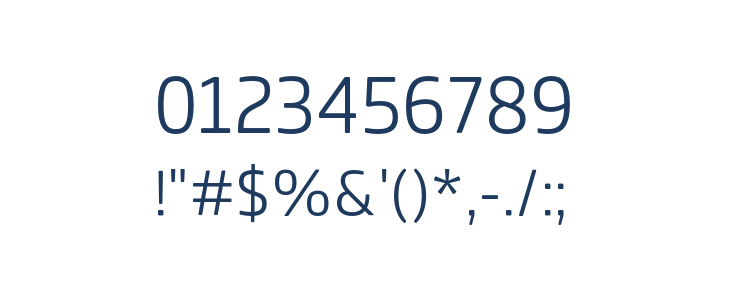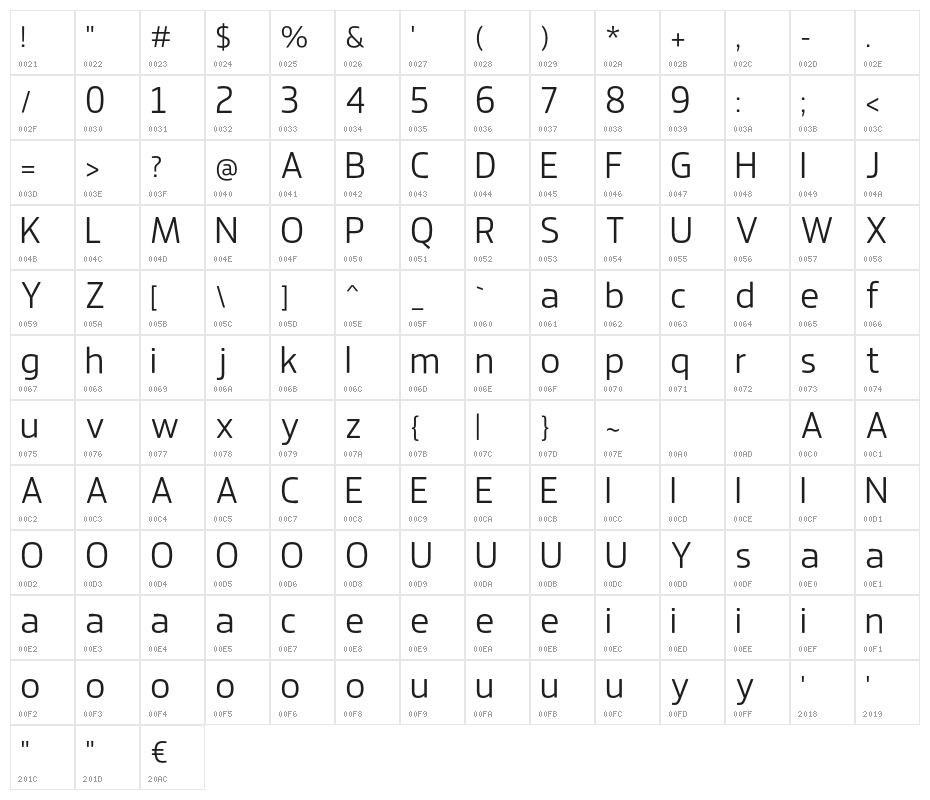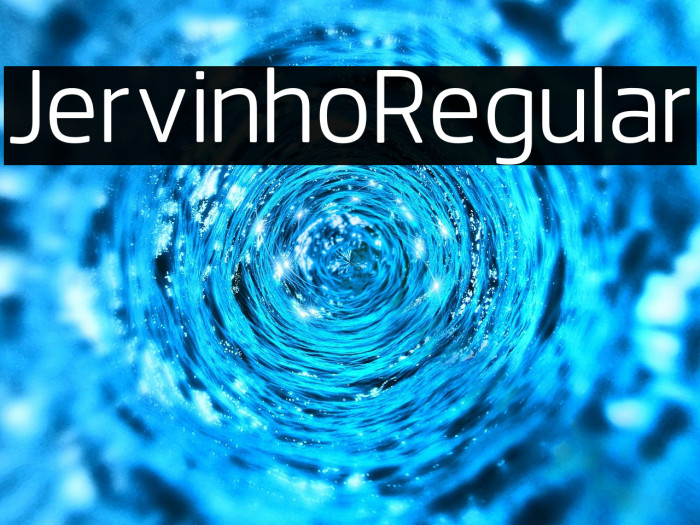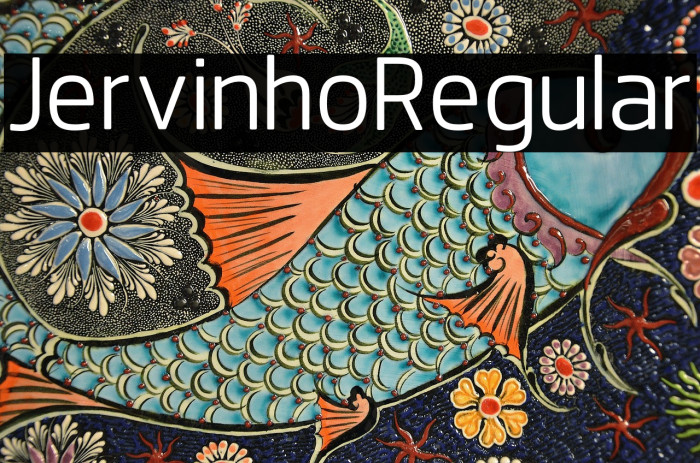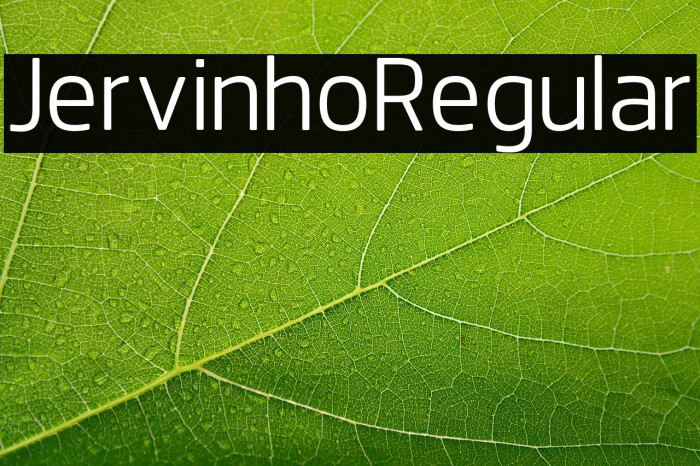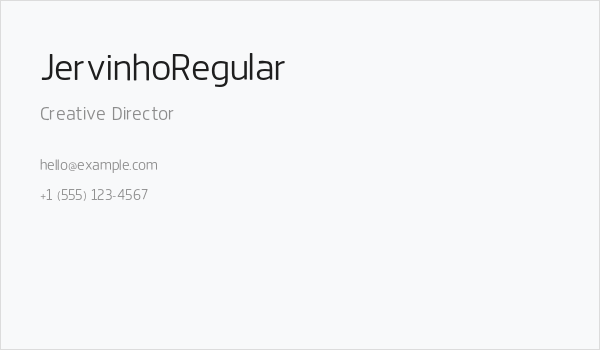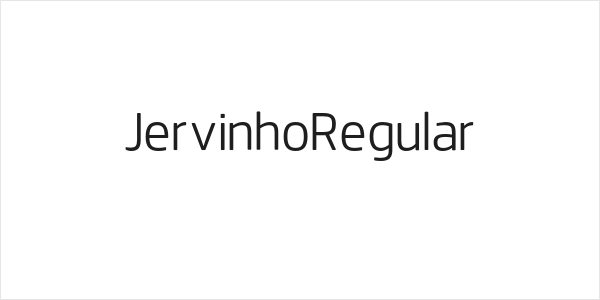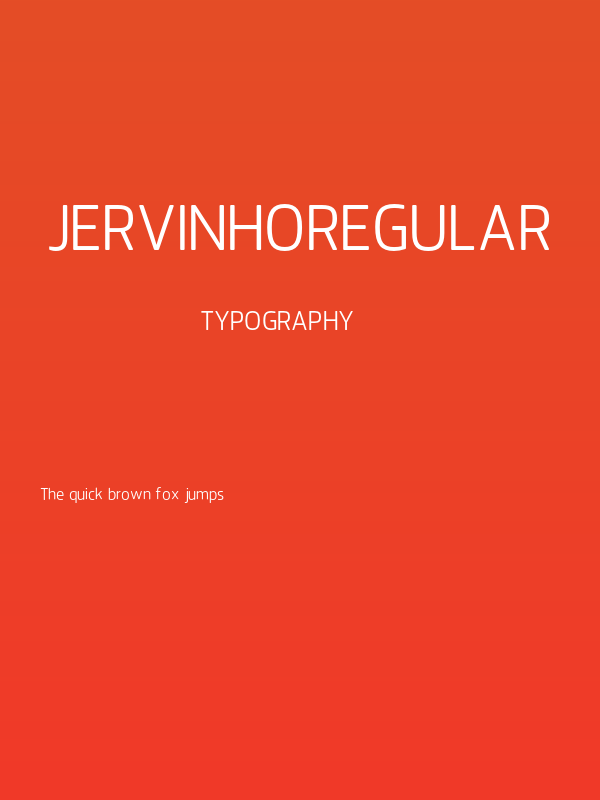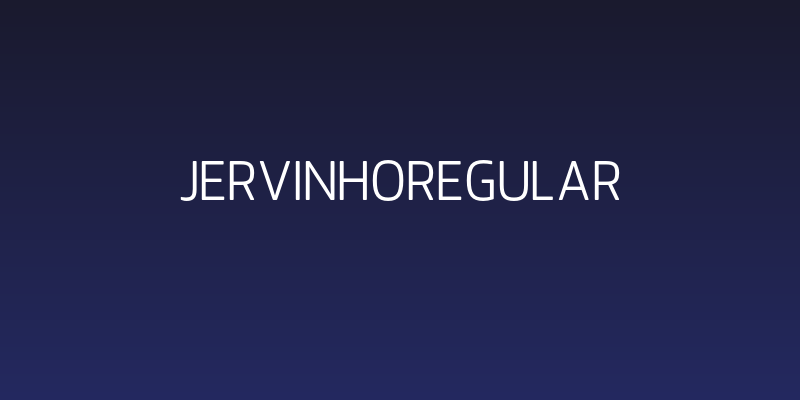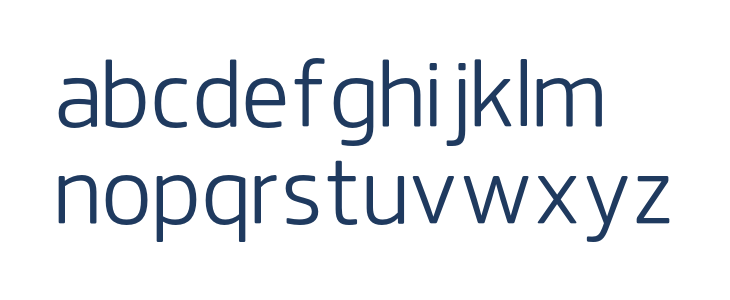
JervinhoRegular Font
JervinhoRegular Description
This typeface features a clean and modern sans-serif design, characterized by its geometric shapes and uniform stroke widths. The letters are well-proportioned, with a slight curvature that adds a touch of softness to the overall appearance. The uppercase letters are bold and assertive, while the lowercase letters maintain a friendly and approachable feel. The numerals are clear and easily distinguishable, making them suitable for a variety of applications. The special characters are designed to complement the overall style, ensuring consistency across all glyphs.